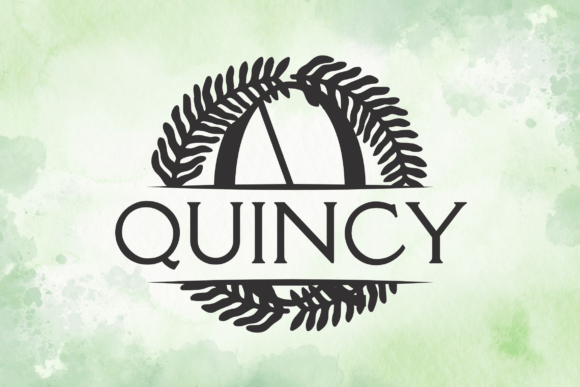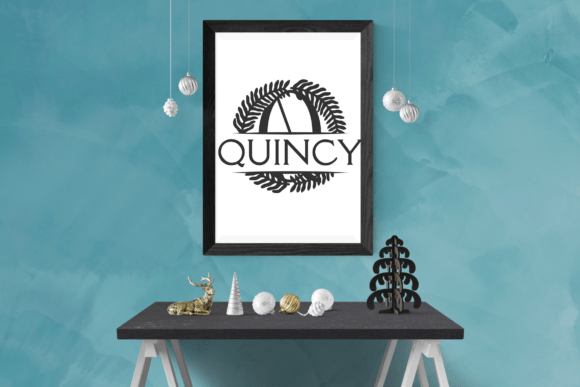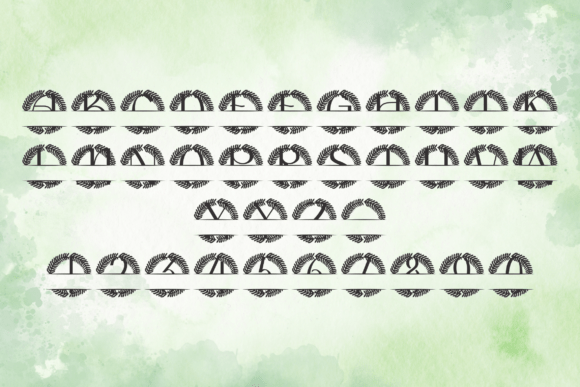
Meet Greyl Split, the Split Monogram Font Revolutionizing Design
Are you tired of using generic, overused fonts for your designs? Look no further than Greyl Split, the innovative split monogram font that’s taking the design world by storm. With its clean, modern aesthetic and crisp center split, Greyl Split is perfect for turning simple initials into stunning emblems for names, dates, or short words.
The Benefits of Greyl Split Monogram Font
Greyl Split Monogram font offers a range of benefits that make it an ideal choice for designers and crafters. Here are just a few reasons why:
- Smooth and Balanced Strokes: The strokes in Greyl Split are smooth and balanced, ensuring that letters remain clear and legible at any size.
- Open Counters and Clean Curves: The counters remain open and curves stay clean, making it perfect for tiny tags and large signage alike.
- Versatile: Greyl Split cuts and prints beautifully for a range of applications, including foil, emboss, deboss, engraving, laser, vinyl, DTF, and sublimation.
- Beautiful Prints: The clean outlines of Greyl Split ensure that your designs cut and print beautifully, making it perfect for a range of applications.
- Quick Layouts: The steady spacing and proportions of Greyl Split make it easy to build layouts quickly, saving you time and effort.
- Instant Personalization: The split bar in Greyl Split gives you instant personalization options, making it easy to create custom listings that feel higher value without extra design time.
Use Cases for Greyl Split Monogram Font
Greyl Split Monogram font is perfect for a range of design applications, including:
- Wedding Suites: Create beautiful, personalized wedding suites with Greyl Split, including invitations, programs, and more.
- Boutique Logos: Use Greyl Split to create stunning boutique logos that reflect your brand’s style and sophistication.
- Keepake Gifts: Create personalized keepsake gifts, such as engraved jewelry, customized phone cases, and more.
- Wax Seals: Add a touch of elegance to your designs with Greyl Split’s crisp, clean lines, perfect for wax seals and more.
- Stationery: Create beautiful, personalized stationery with Greyl Split, including notecards, journals, and more.
- Premium Packaging: Use Greyl Split to create stunning premium packaging that reflects your brand’s style and sophistication.